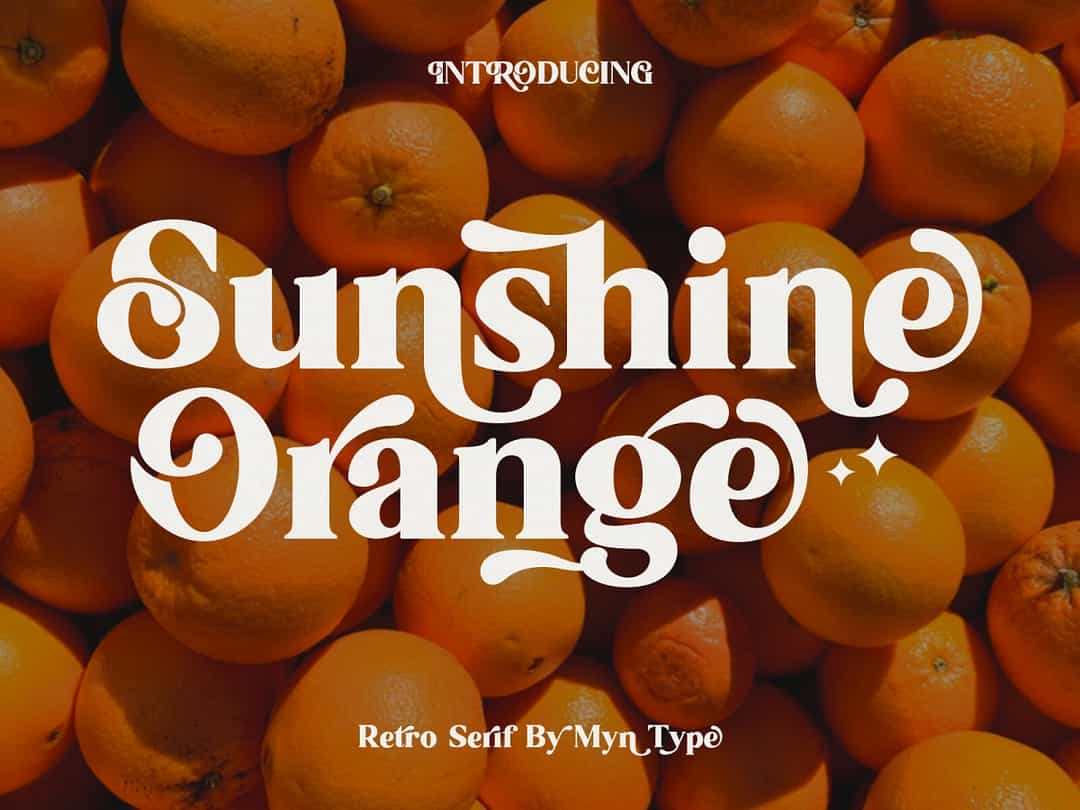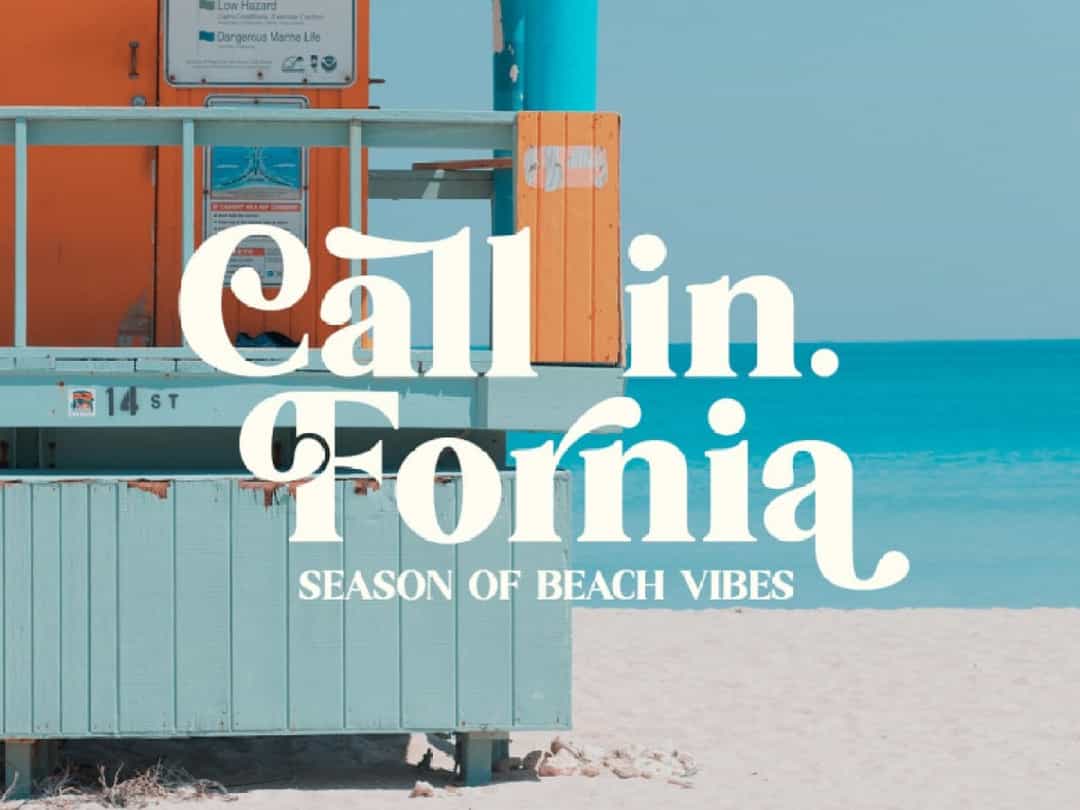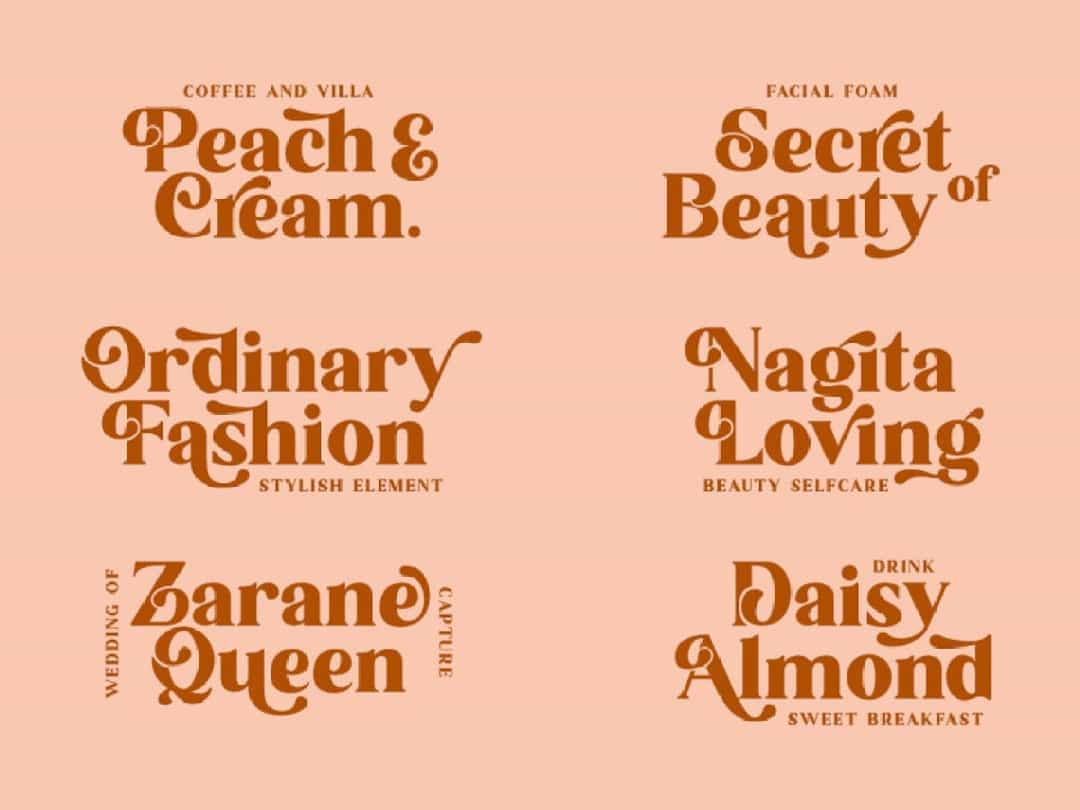
Get to know Sunshine Orange!! A font style inspired by classic typefaces of the past, this font style is known for its distinct and vintage aesthetic. It stands out thanks to serifs: small decorative strokes at the end of main strokes which add elegance and timelessness. Sunshine Orange features these distinctive serifs prominently, giving its letters an elegant and timeless aesthetic.